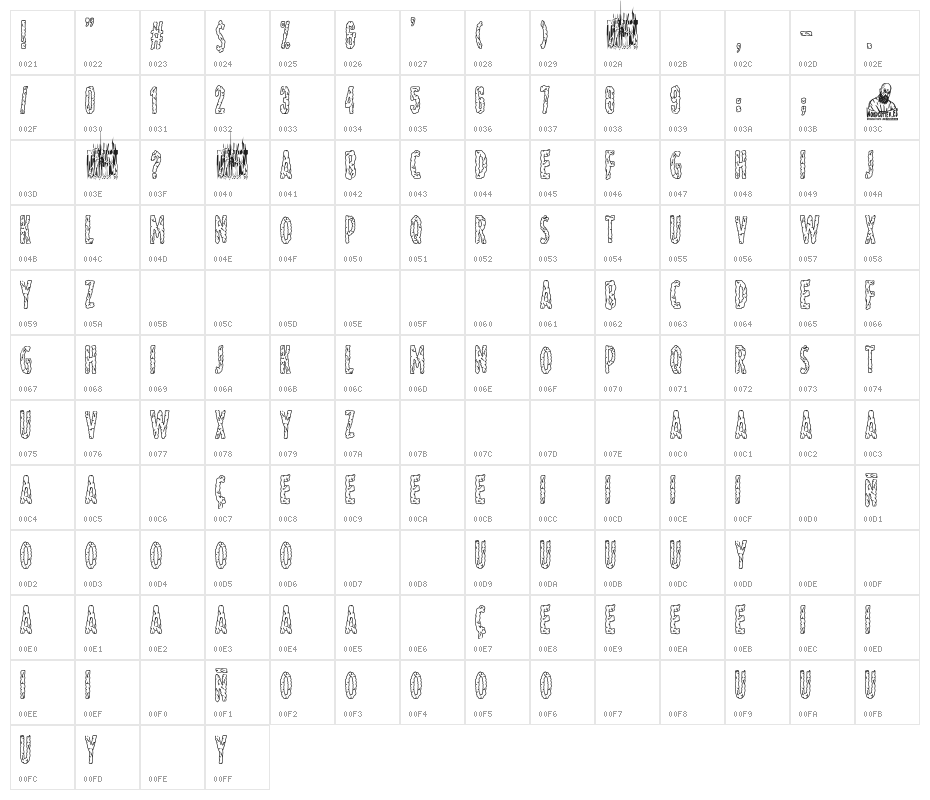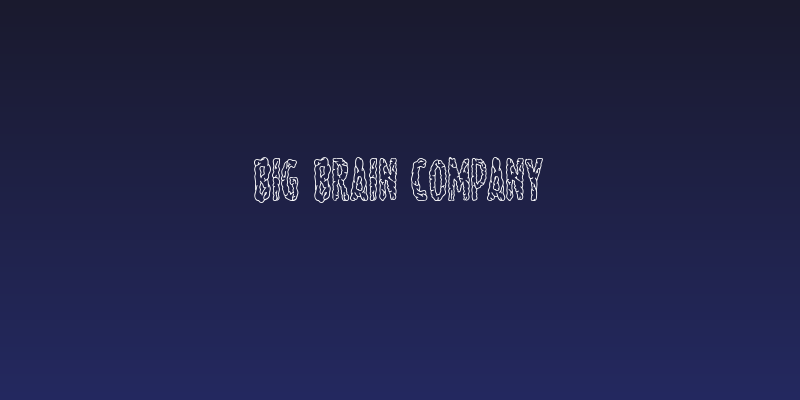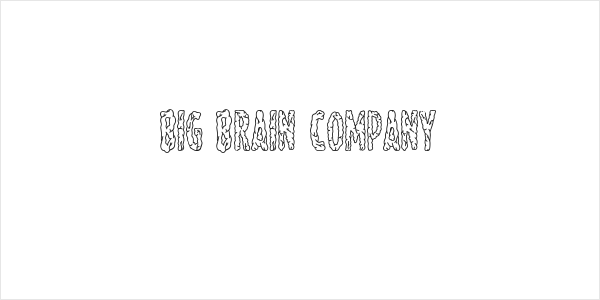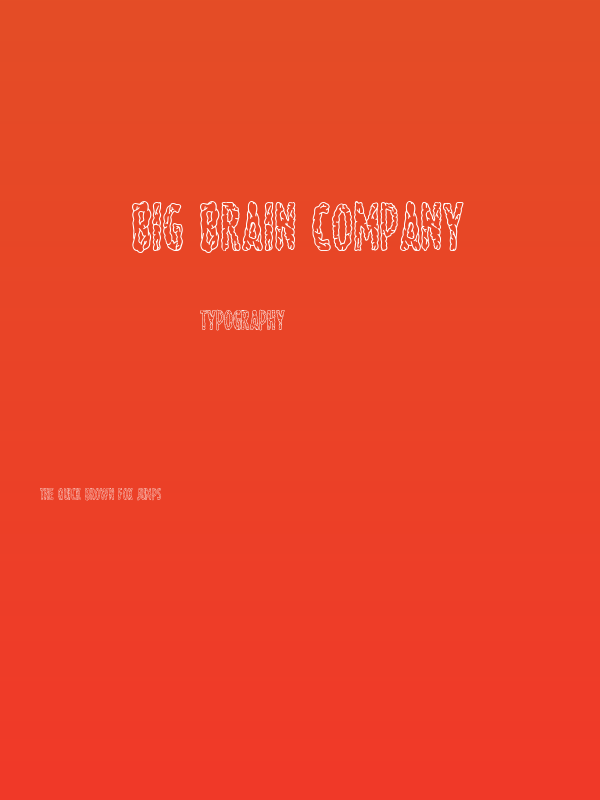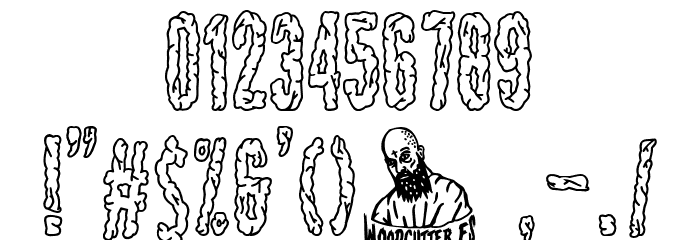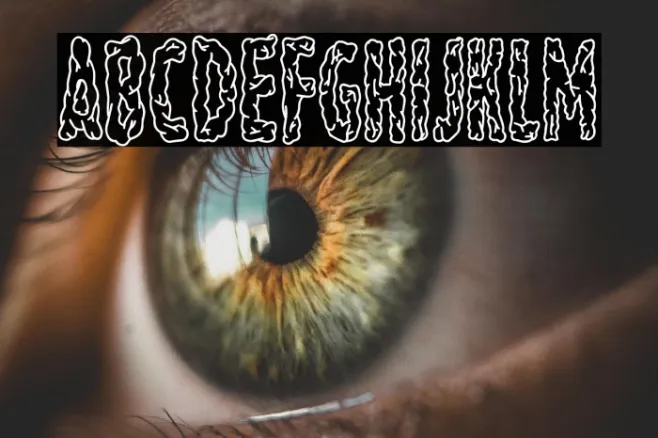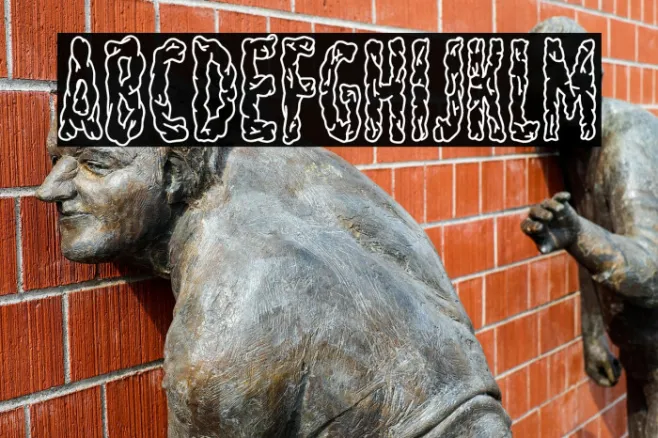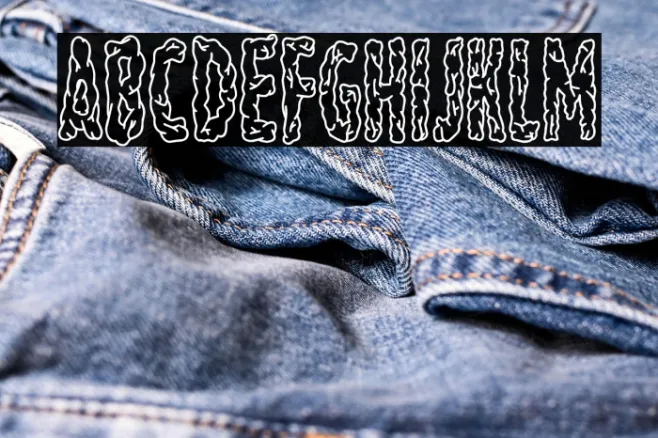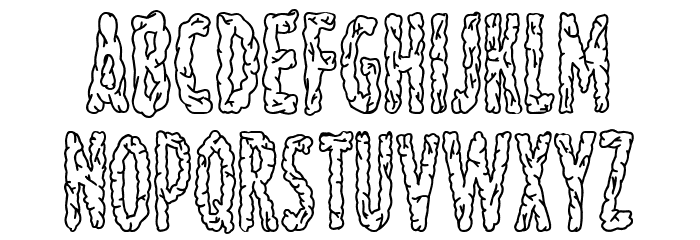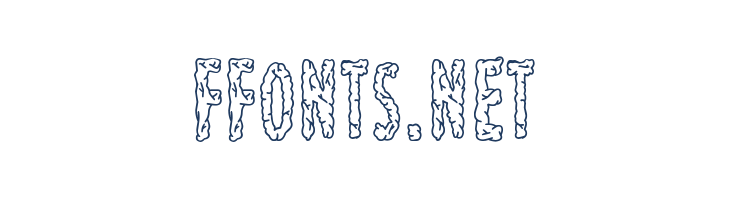
Big Brain Company Font
Big Brain Company Description
This font features a unique, organic design that resembles dripping or melting forms, giving it a dynamic and somewhat eerie appearance. The characters are bold and irregular, with a hand-drawn quality that adds to its distinctive style. Each letter and number is crafted with a playful yet slightly chaotic outline, making it stand out in any design. The font's quirky and unconventional look is perfect for projects that require a touch of creativity and boldness. Its decorative nature makes it suitable for eye-catching headlines or thematic designs.
| Proposed Projects | Ideal for Halloween-themed designs, posters, album covers, and creative branding projects. |